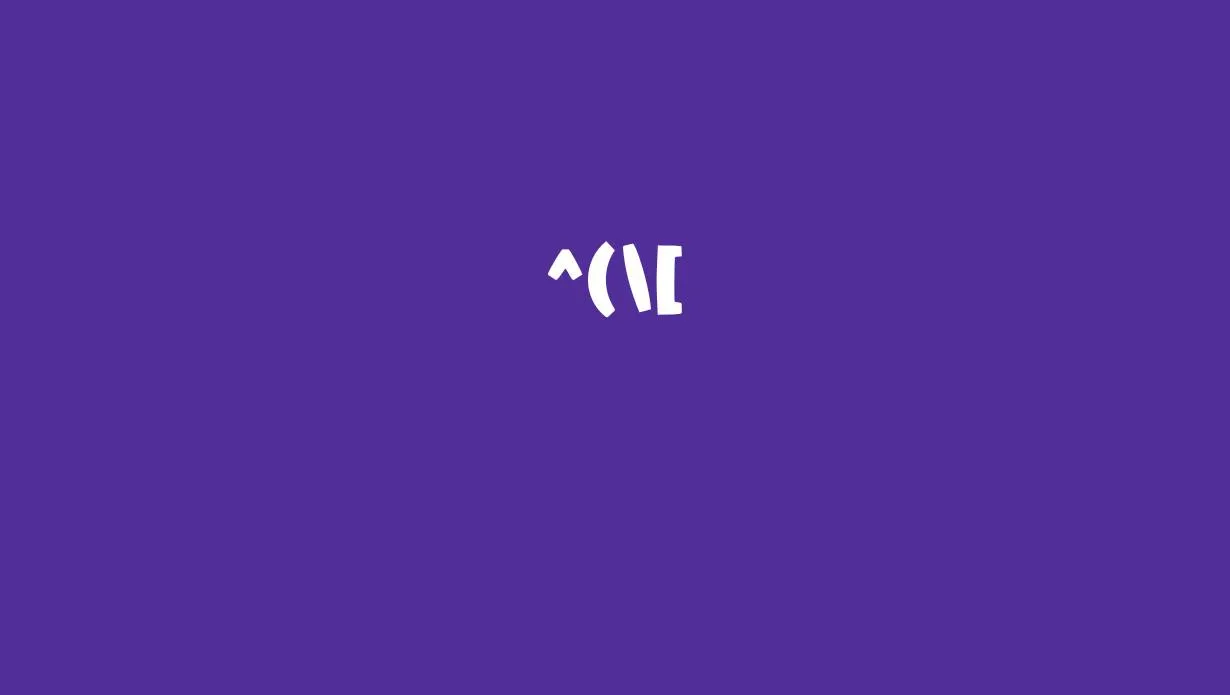
Dino Jump Font is a bold, funny, and gorgeous display font that was created by Rozi and released by Twinletter along with both TTF and OTF formats. This funny and bold font is perfect for a kid-related project that can make it more cute, gorgeous, and attractive.
You can utilize this font with kinkie font and get more attractive, gorgeous, and playful fallout.